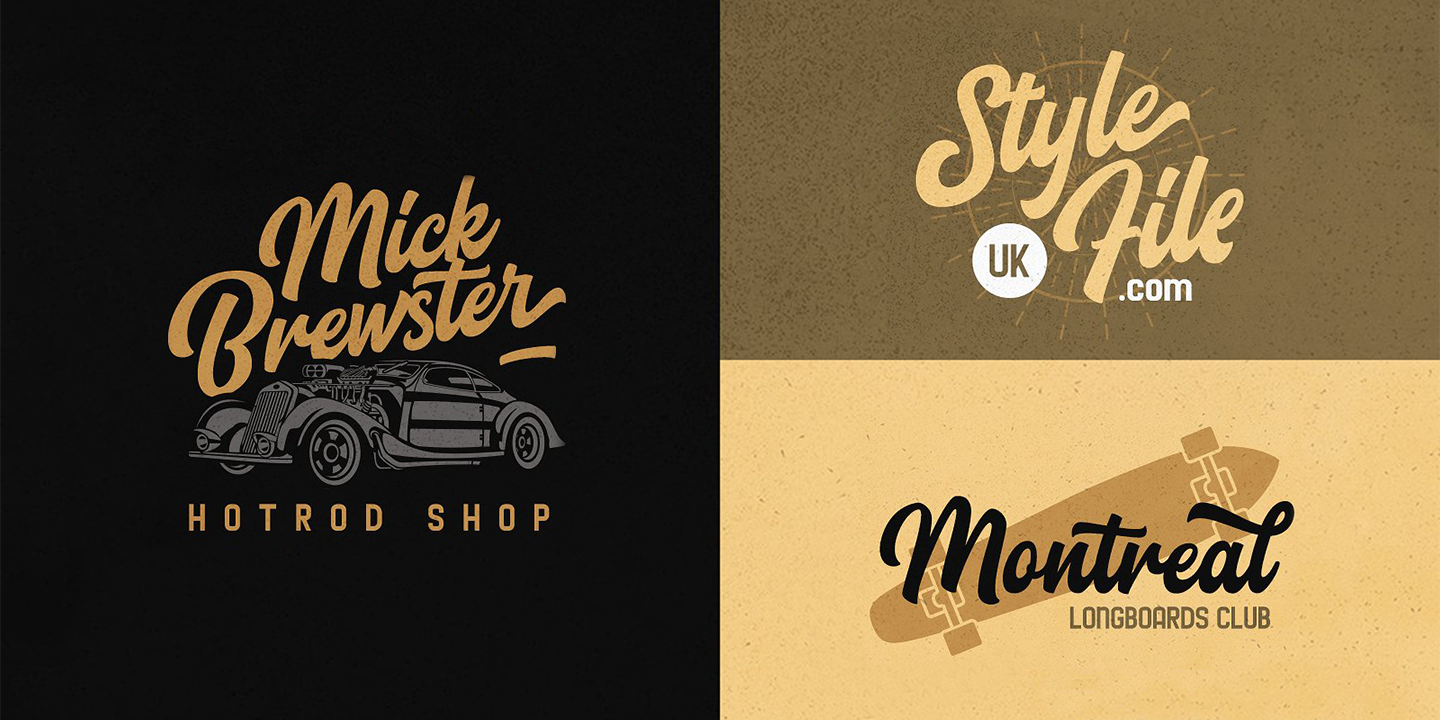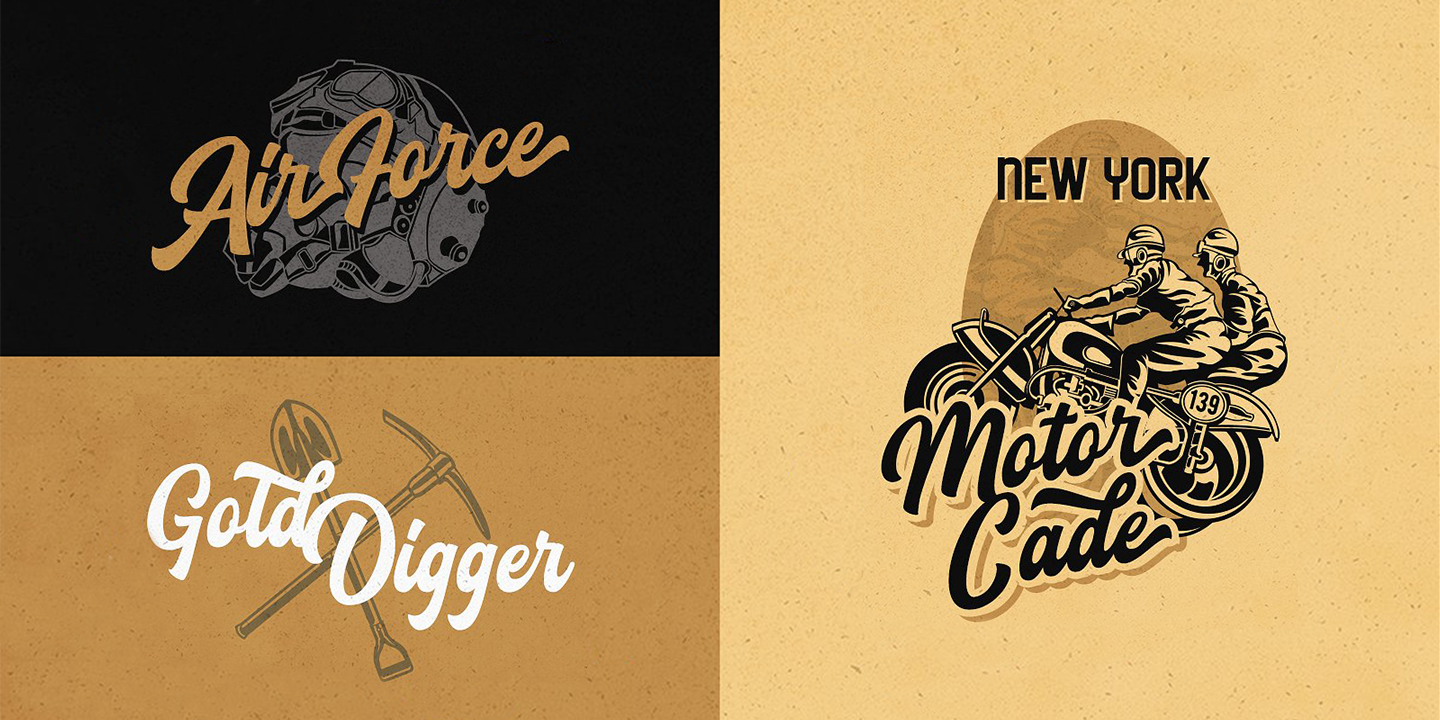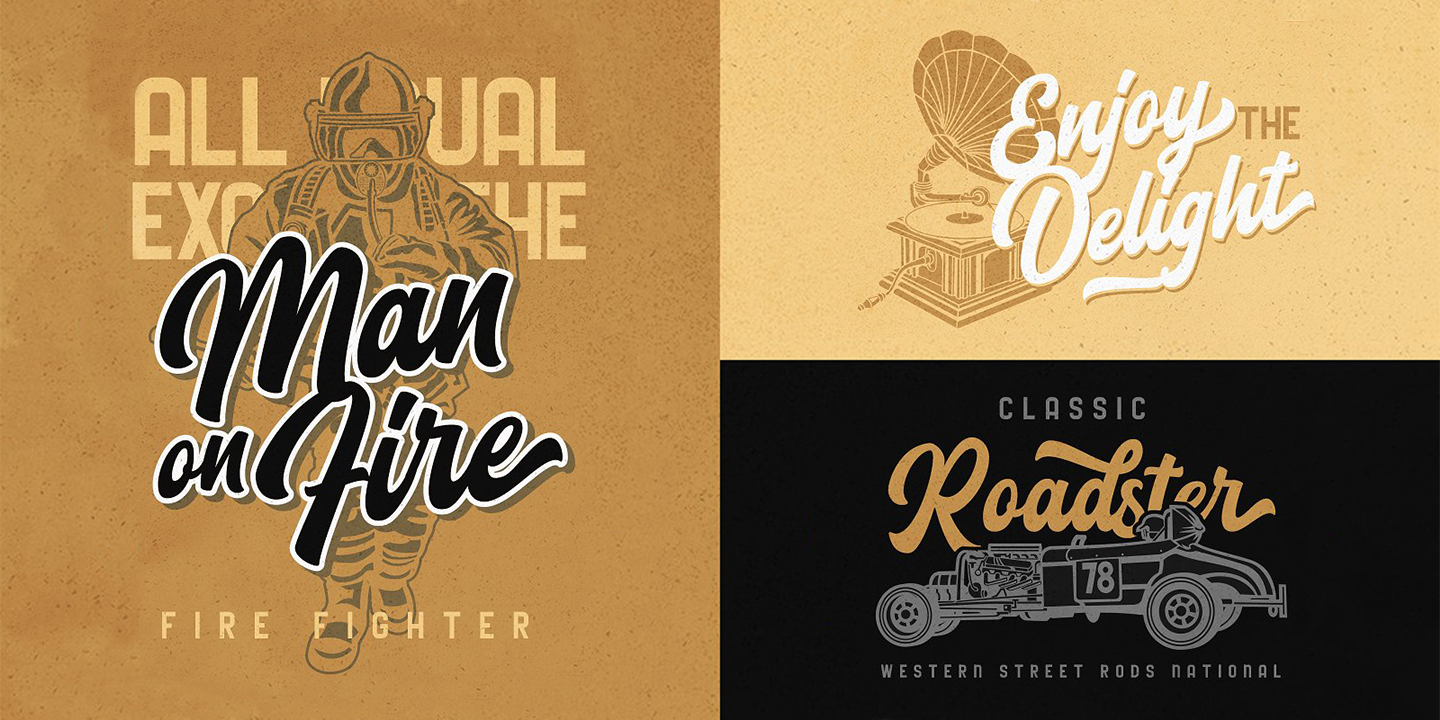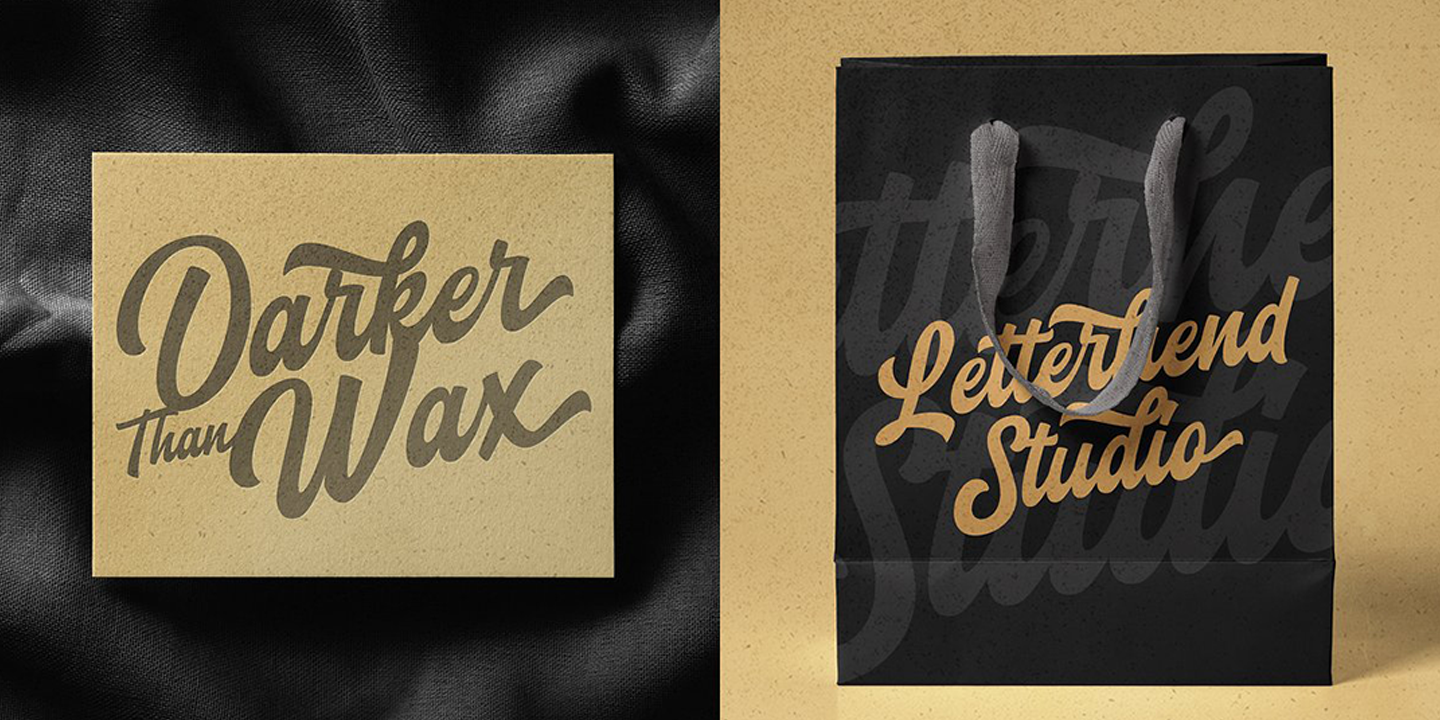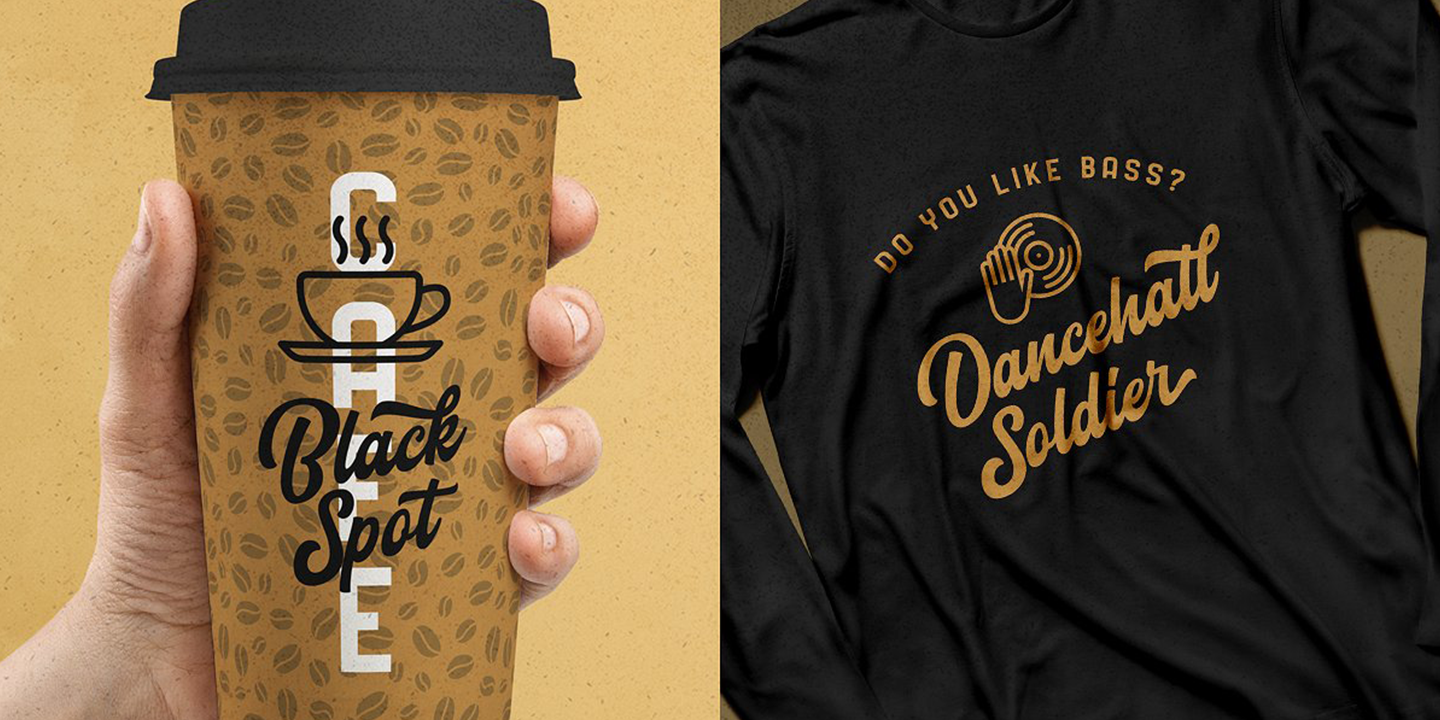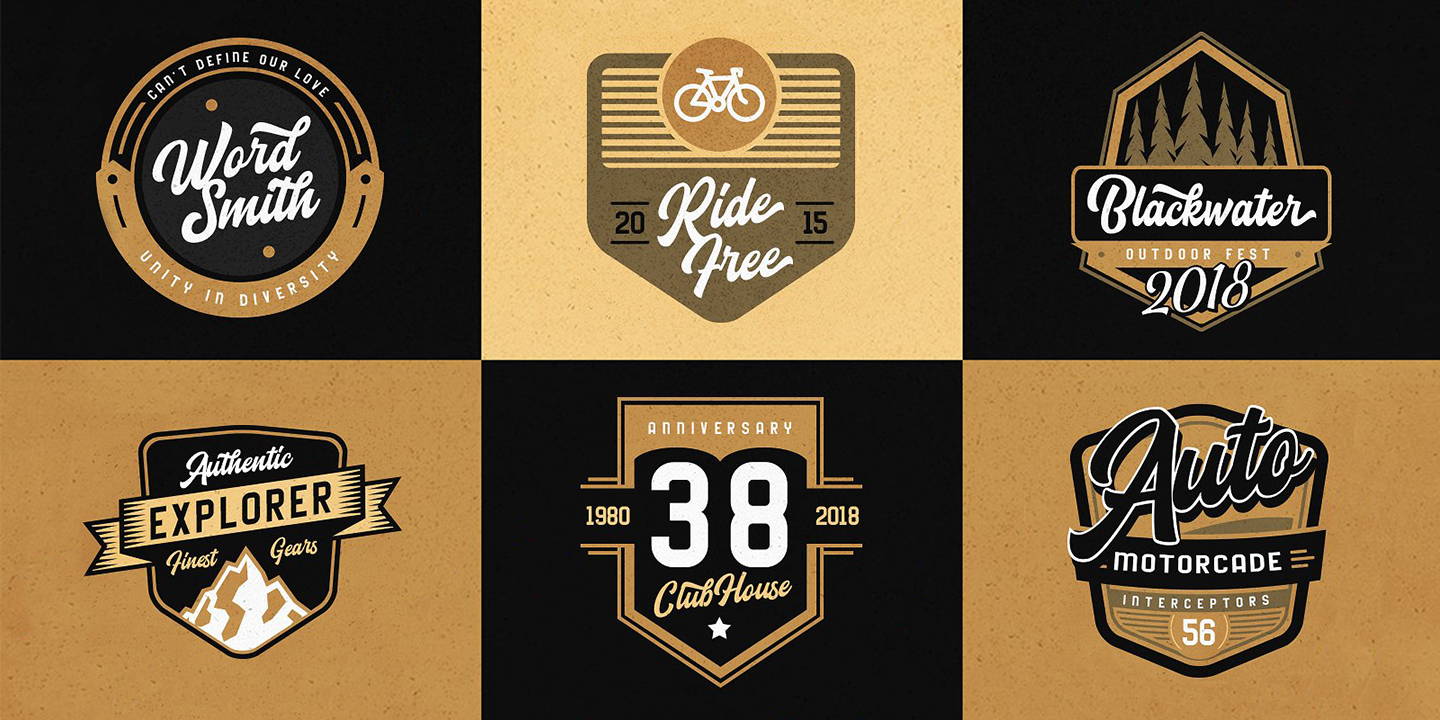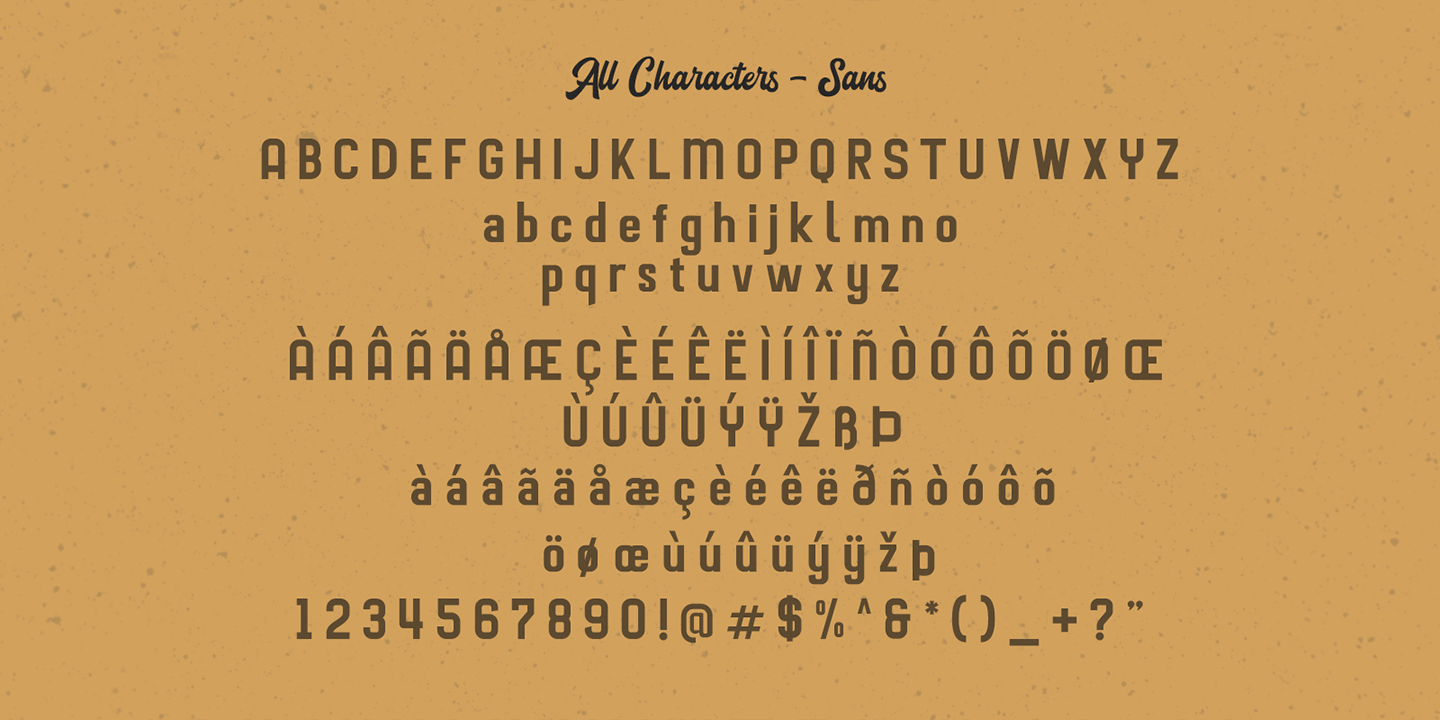
Blacklite is a bold script that will stands out from the crowd! Perfect to be used as logotype, badge and label! This has many OpenType features like ligatures, stylistic alternates, contextual alternates, swash, and more, and support multiple languages.